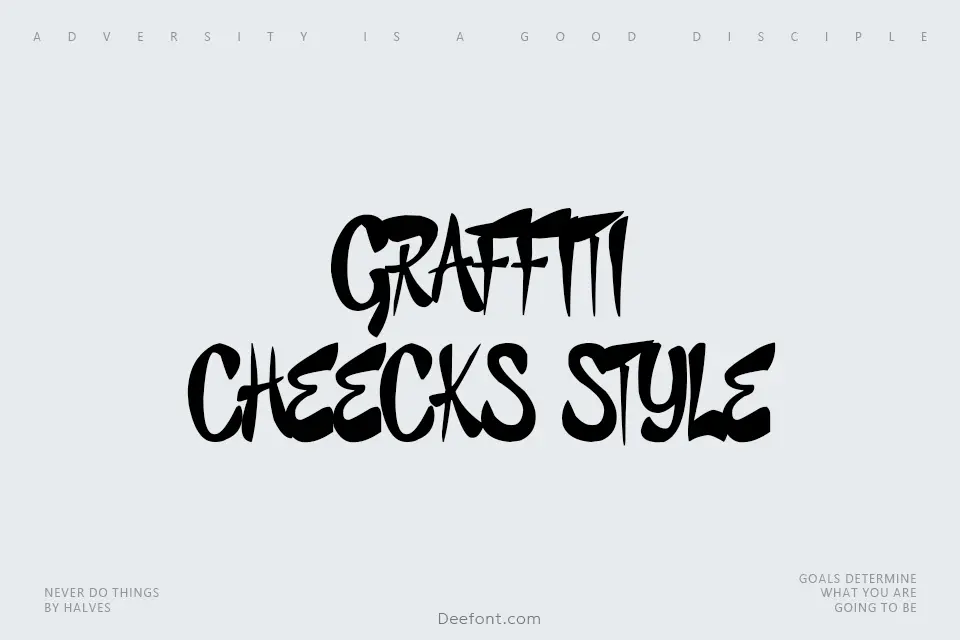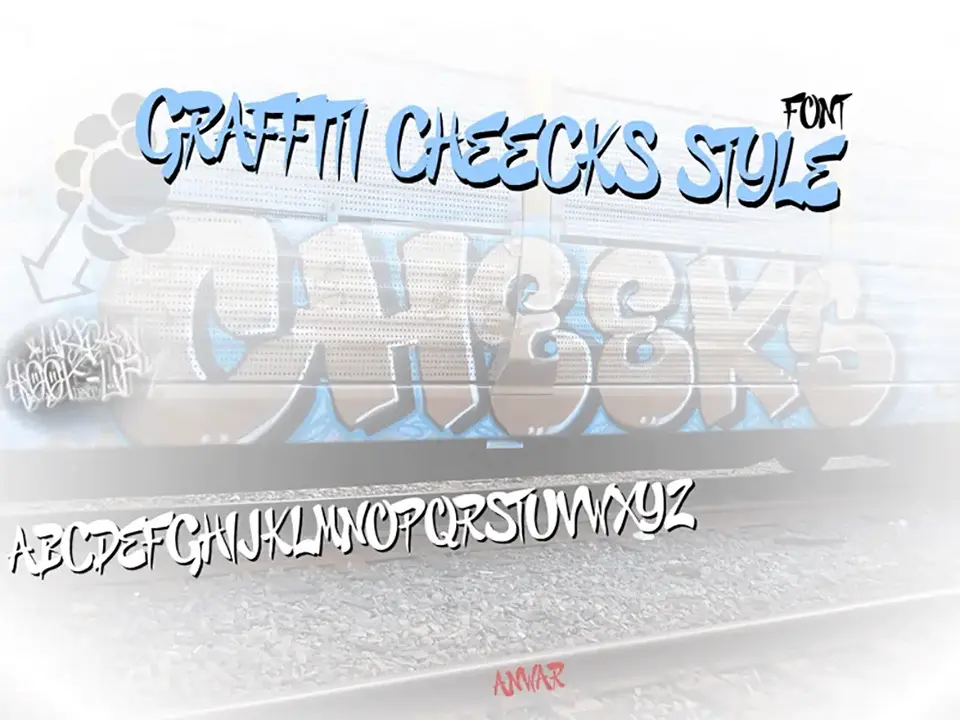
Graffiti Cheecks Style Font
Graffiti Cheecks Style is a vibrant graffiti script font designed for creative projects that demand bold urban aesthetics. This eye-catching typeface features distinctive letterforms inspired by Old School street art culture, perfect for posters, album covers, and contemporary design work. With its playful yet expressive character set, the font delivers authentic graffiti vibes while maintaining excellent readability for headlines and display purposes.